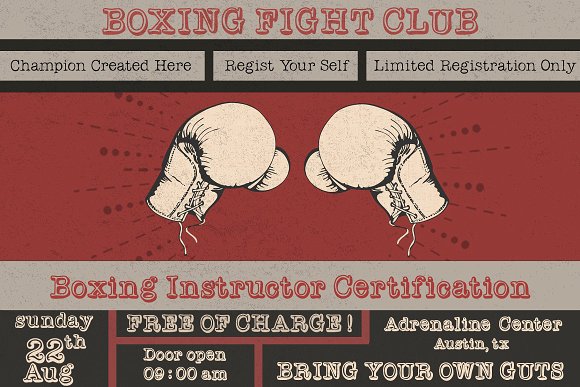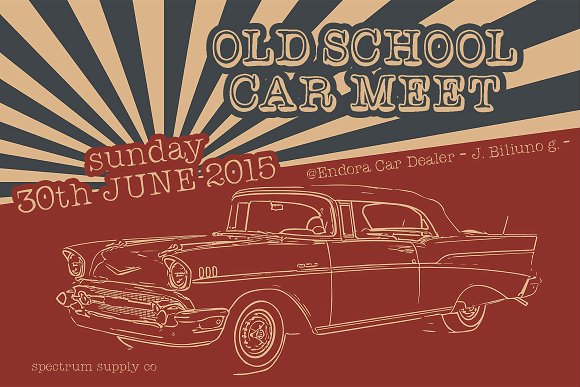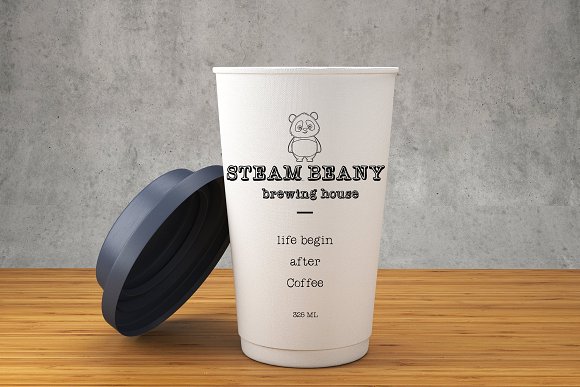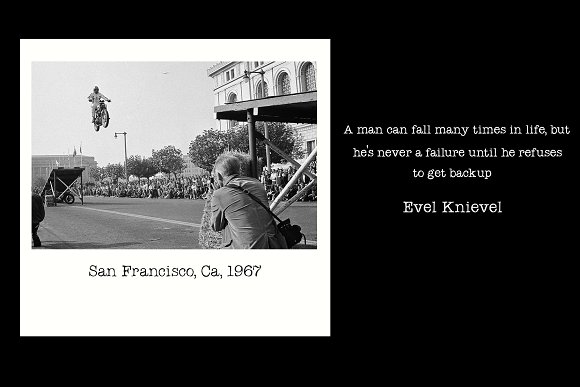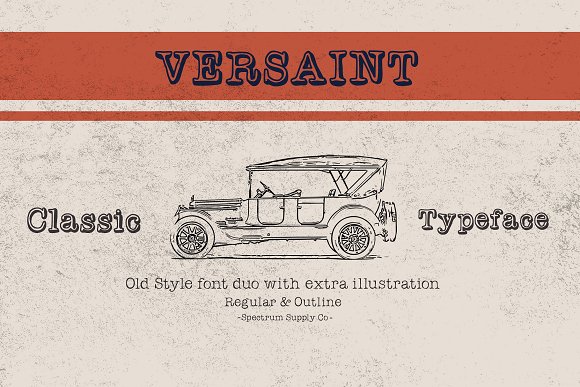
Versaint Font Duo + Extras
Introducing VERSAINT Sexy Classic Fun typewriter font duo brought to you by Spectrum Supply co. These font is dedicated for anyone who loves vintage things. although this font is designed with vintage anatomy, but this font can also be used for modern-themed purposes. Also you will get many bonus such as Illustration, Editable logo & Badges in this package. VERSAINT so perfect for logo design, branding purposes, patterns, posters, stationery, and everything else you can think of.